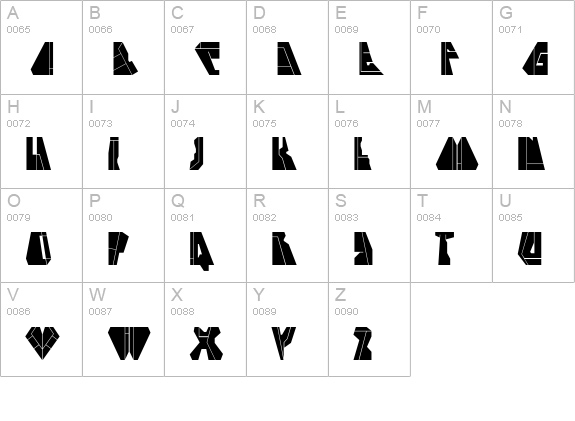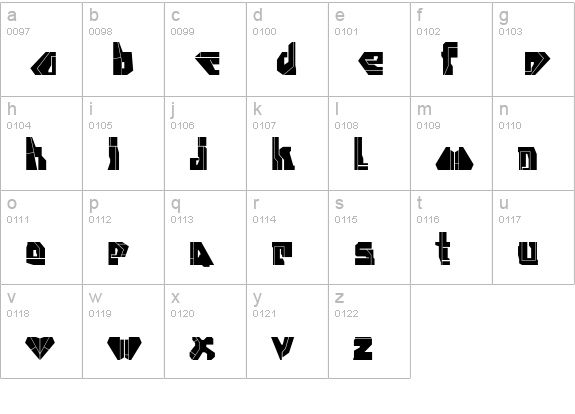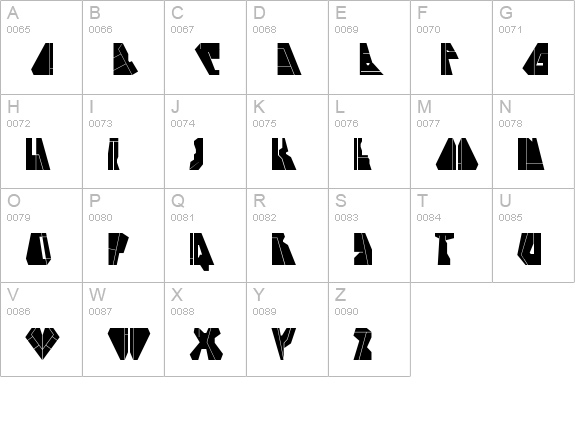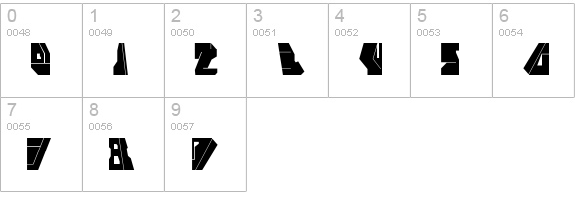
Stealth-Plane Font Details
Introducing the sleek and sophisticated Stealth-Plane font, a truly remarkable typeface that effortlessly captures the essence of modern design and elegance. With its clean lines and sharp edges, this font exudes an air of mystery and intrigue, just like the stealth planes it draws inspiration from. The Stealth-Plane font is perfect for projects that require a touch of sophistication and a hint of secrecy. Its bold yet refined letterforms make a powerful statement, commanding attention and leaving a lasting impression. Whether used in headlines, logos, or even body text, this font adds an element of intrigue and exclusivity to any design. But what sets the Stealth-Plane font apart is not just its exceptional style, it's also its availability. That's right, this incredible font is freely available to download at FontsMarket.com. Now you can effortlessly elevate your designs without breaking the bank. No more searching endlessly for the perfect font, as Stealth-Plane offers everything you need in one sleek package. So go ahead, unleash your creativity and embrace the power of the Stealth-Plane font. With its captivating presence and unlimited potential, it's the perfect choice for designers, creatives, and enthusiasts alike. Download it today at FontsMarket.com and embark on a journey of design excellence and innovation. The sky's the limit with the Stealth-Plane font!